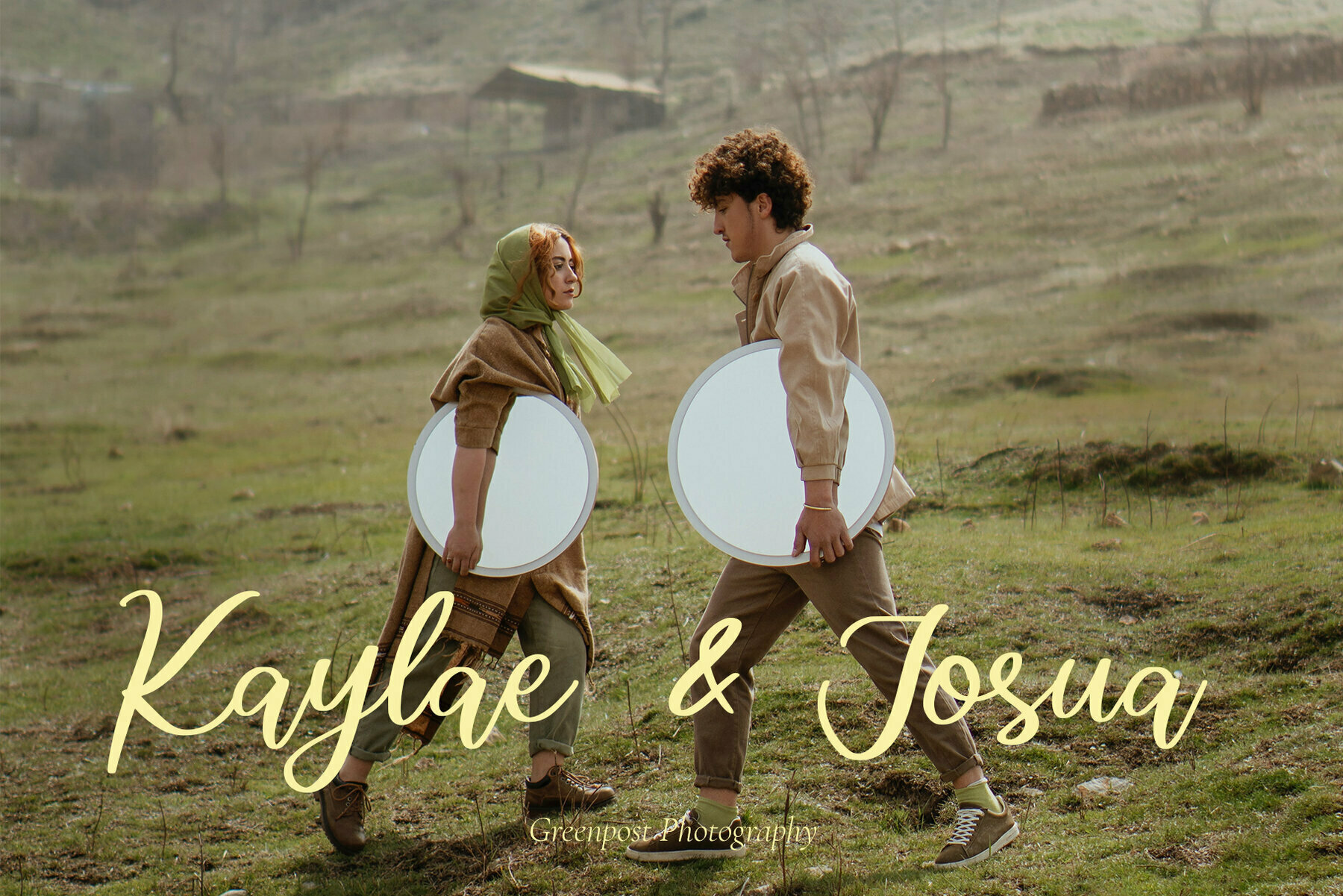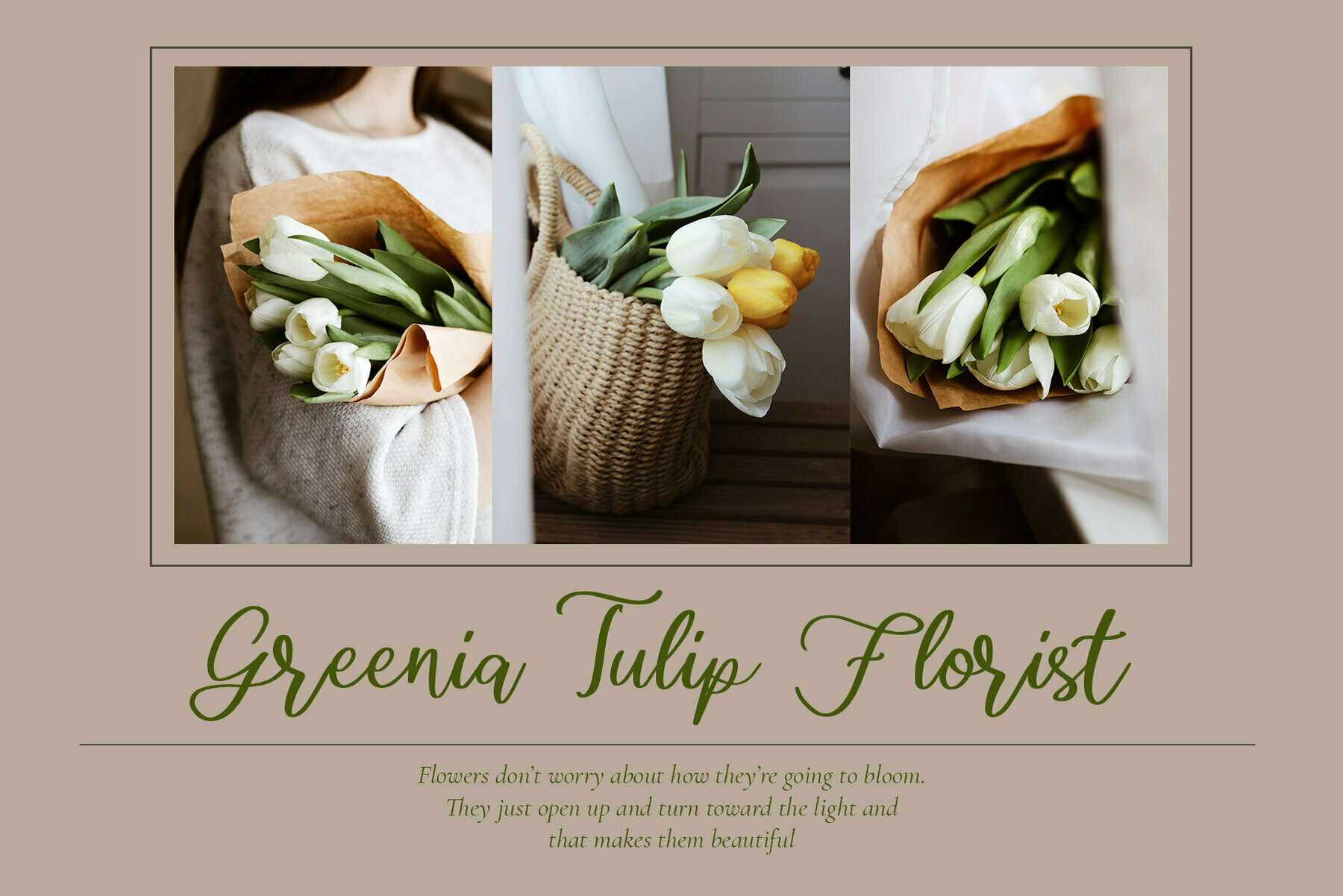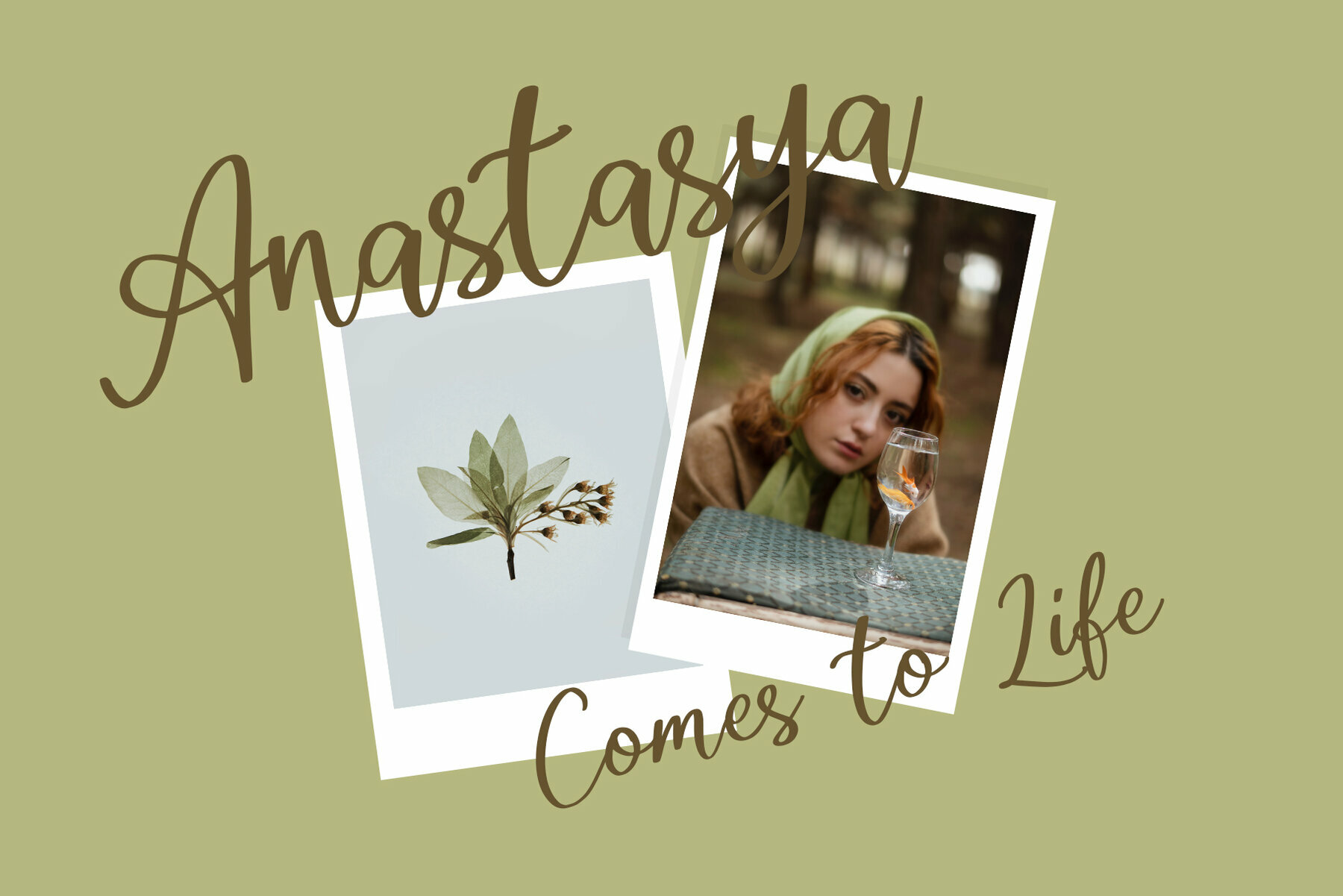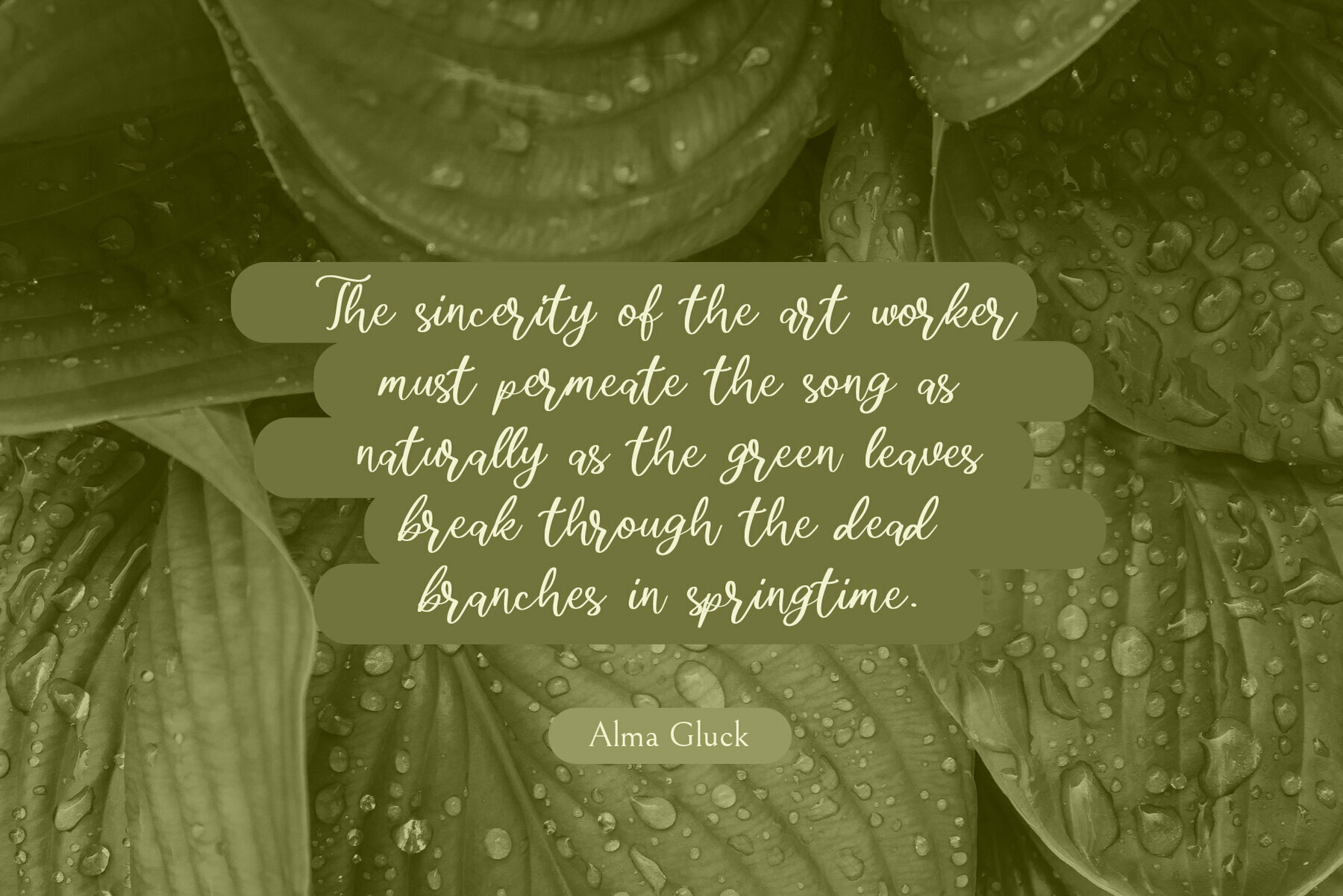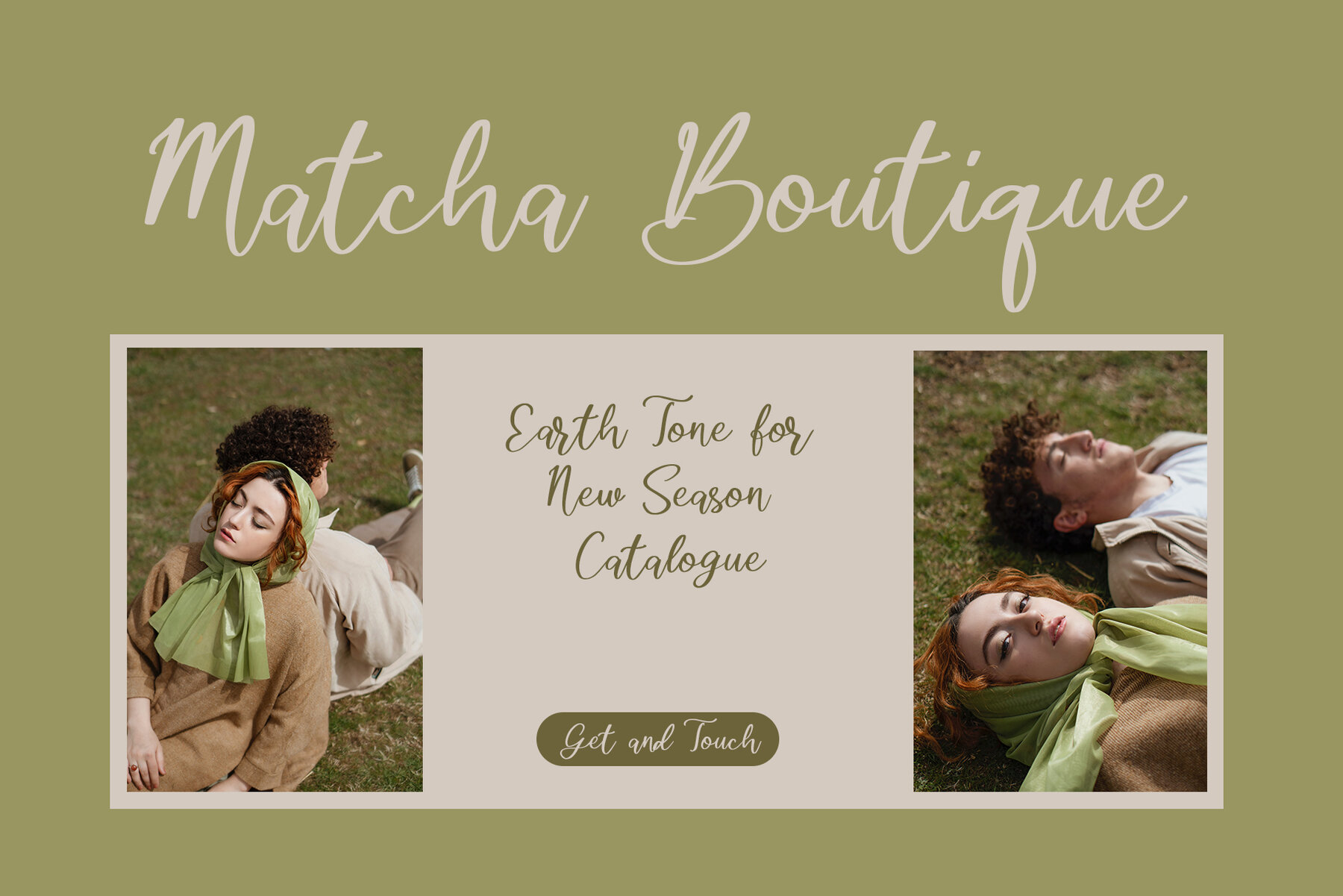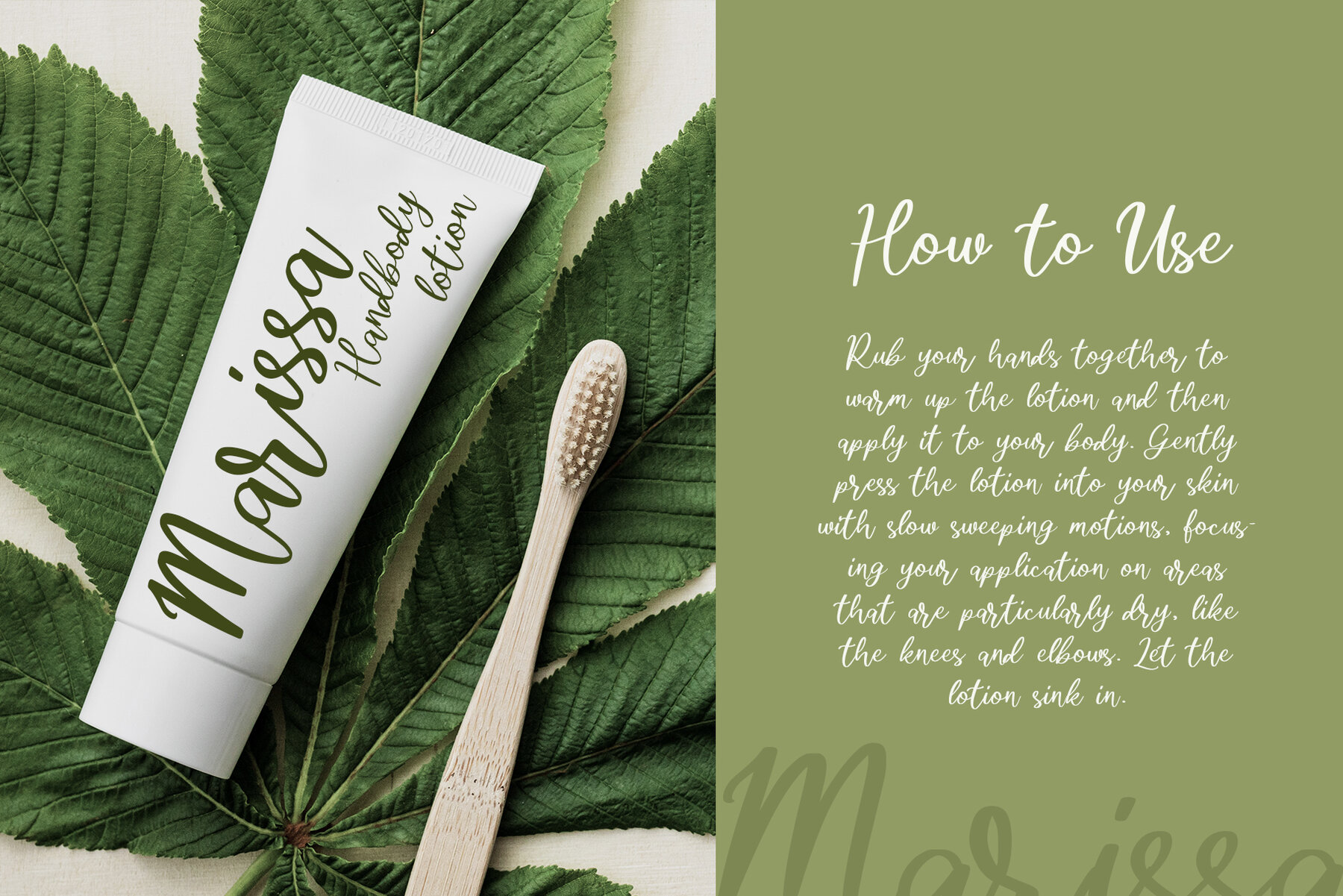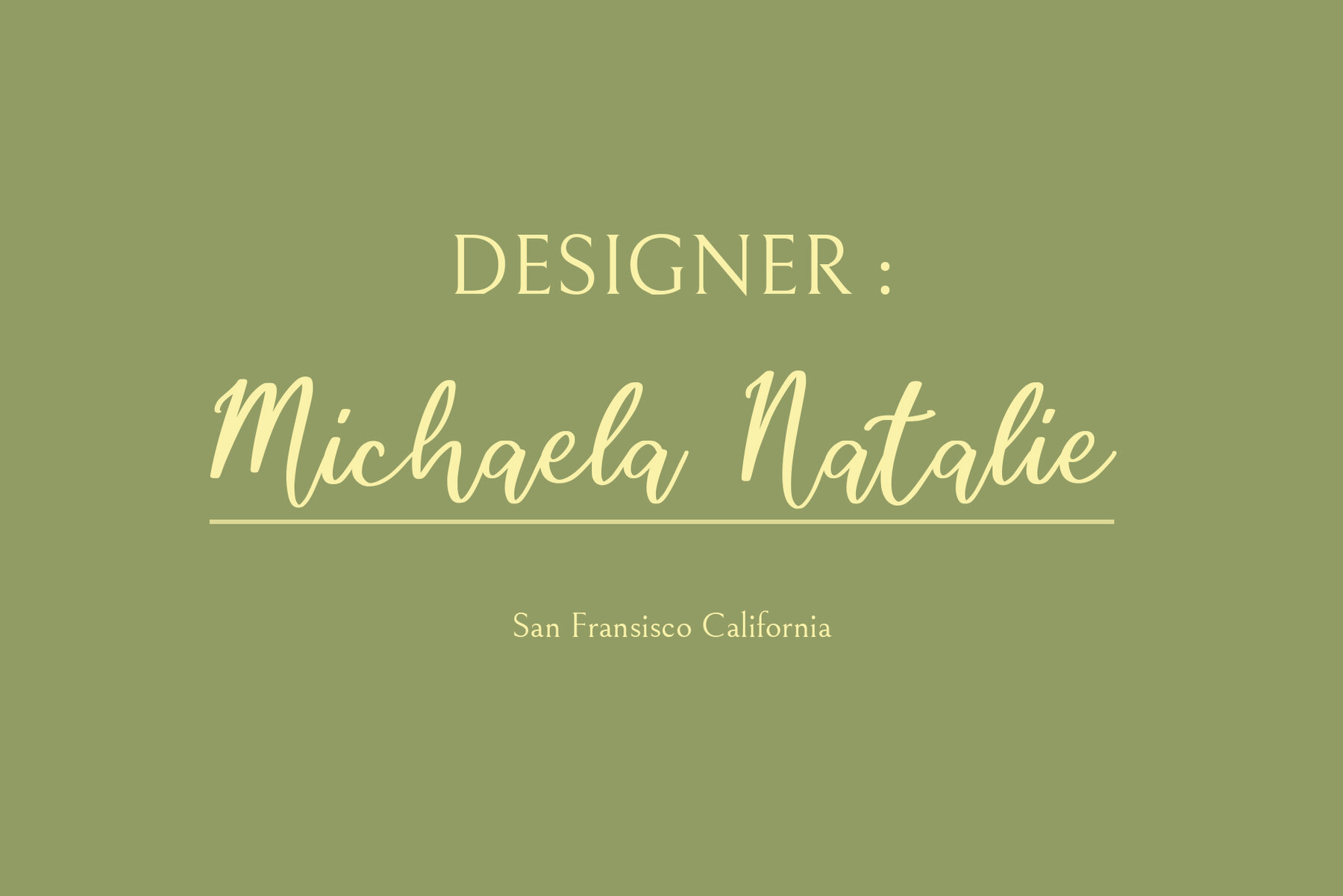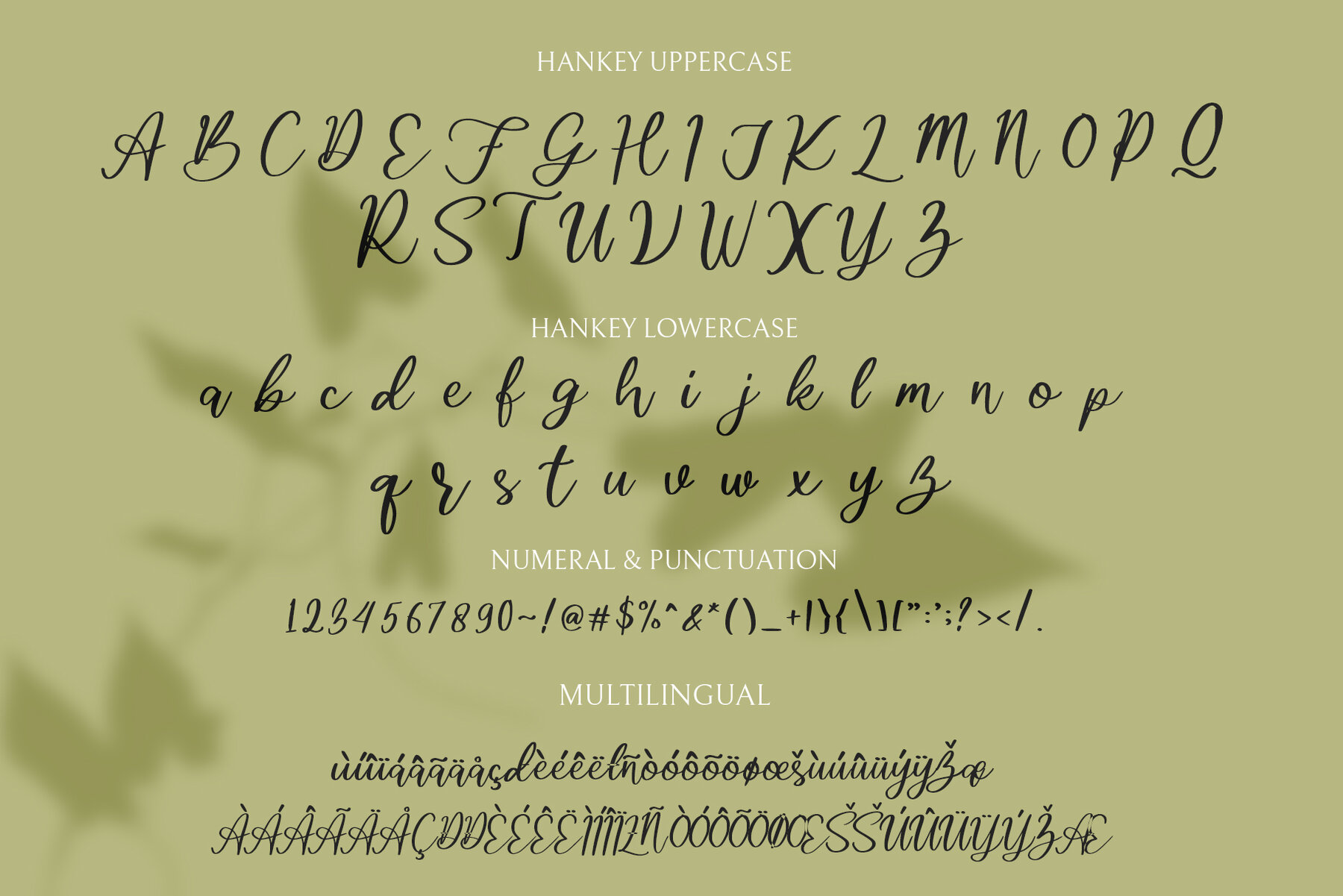
Hankey Font
Introducing Hankey, a handwritten script font that brings an elegant touch to any project. Ideal for fashion labels, e-commerce brands, and wedding boutiques looking to convey a sense of upscale sophistication, Hankey shines with its distinctive style. This font is also a perfect fit for crafting logos, creating beautiful greeting cards, and designing quotes and posters. Whether you're working on a branding project, designing stationery, or embellishing a book cover, Hankey's versatility will elevate your work to new heights. It suits diverse aesthetic themes, ranging from hand-drawn designs to watercolor-inspired projects. Perfect for modern envelope lettering and any DIY project aimed at achieving a trendy and chic outcome.Hankey: The Perfect Handwritten Script for Elegant Designs